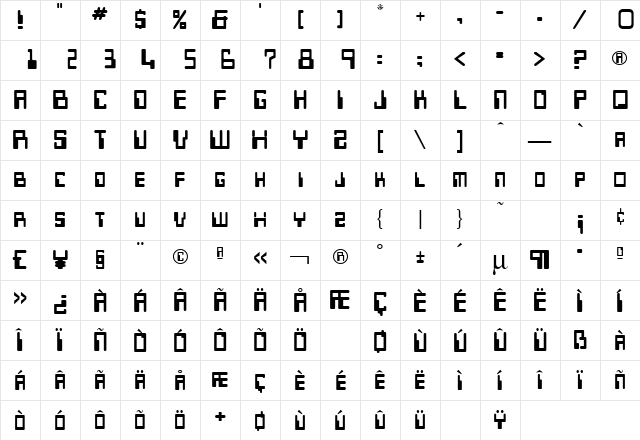
Micr Regular Free Font
Micr Regular
Design Context for Micr
Micr is a composed and adaptable typeface that performs quietly and consistently across a wide range of design contexts.